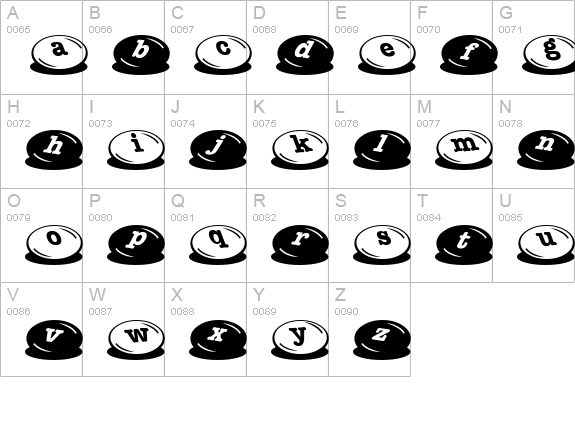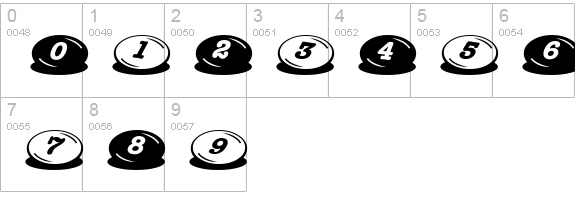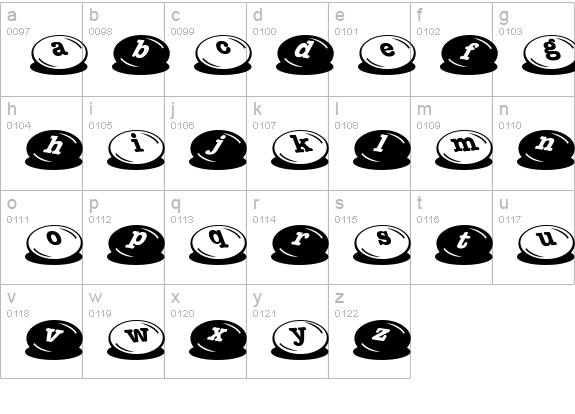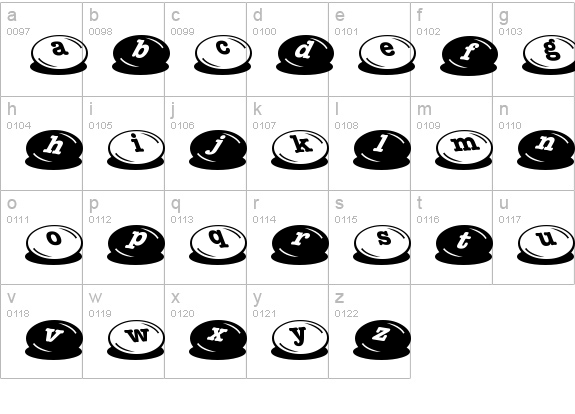
m&ms Font Details
The m&ms font is a captivating and delightful typeface that effortlessly captures the essence of the iconic candy-coated chocolates. With its playful curves and rounded edges, this font evokes a sense of joy and excitement, just like opening a bag of m&ms. Designed with meticulous attention to detail, the m&ms font perfectly replicates the unique shape and texture of the candies, making it a must-have for any candy lover or designer looking to add a touch of fun to their projects. What makes this font even more desirable is that it is freely available to download at FontsMarket.com. This means that you can easily access and use the m&ms font for your personal or commercial projects without any restrictions or limitations. Whether you're creating a colorful poster, designing a quirky logo, or crafting an eye-catching advertisement, the m&ms font will bring a cheerful and playful vibe to your work. Its versatility and charm make it a perfect choice for a wide range of applications, from children's books to confectionery packaging. So, why settle for ordinary fonts when you can infuse your designs with the vibrant and irresistible spirit of m&ms? Download the m&ms font today from FontsMarket.com and unleash your creativity with this delightful typeface. Embrace the sweetness and let your designs stand out from the crowd with this freely available gem.